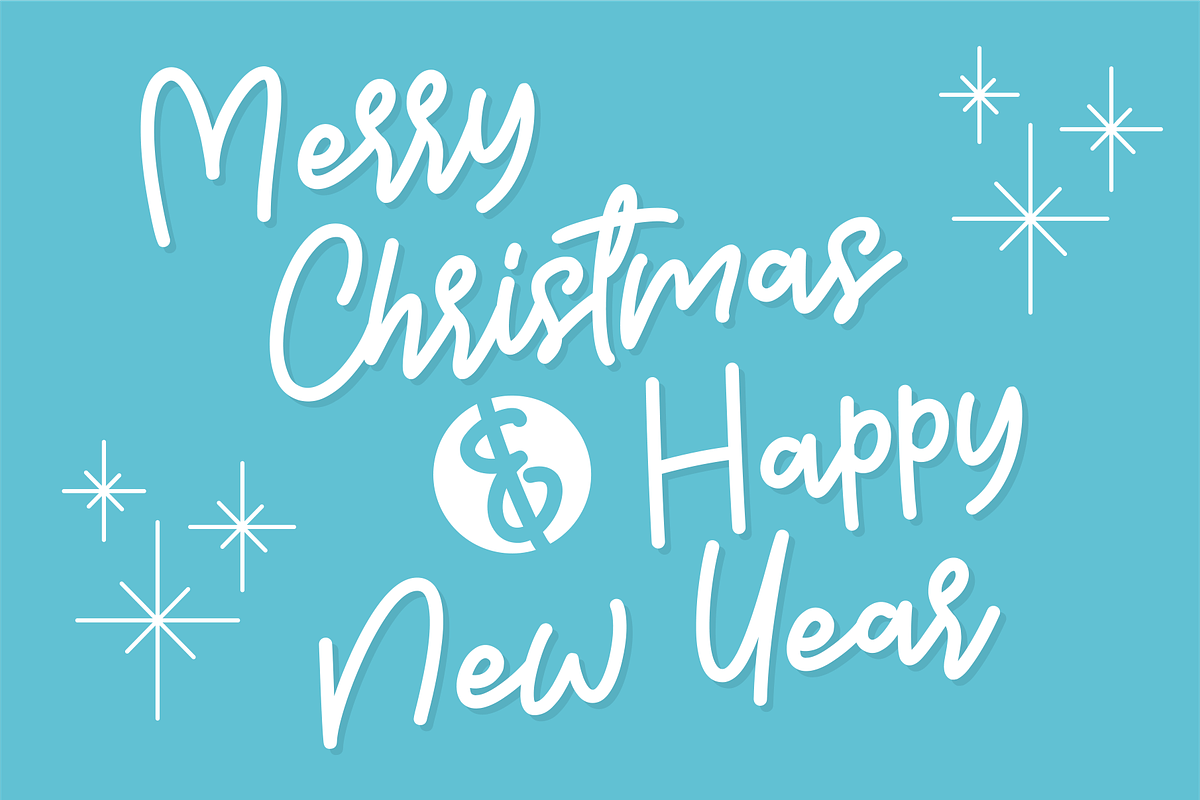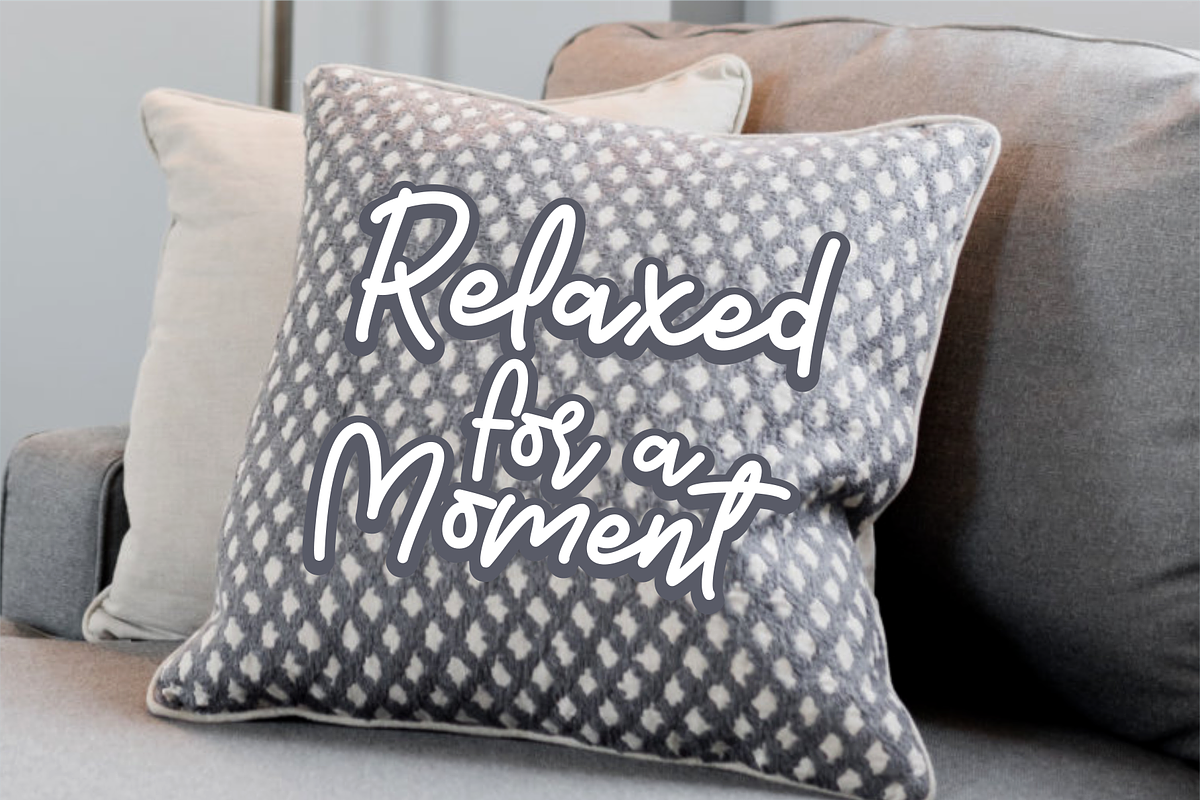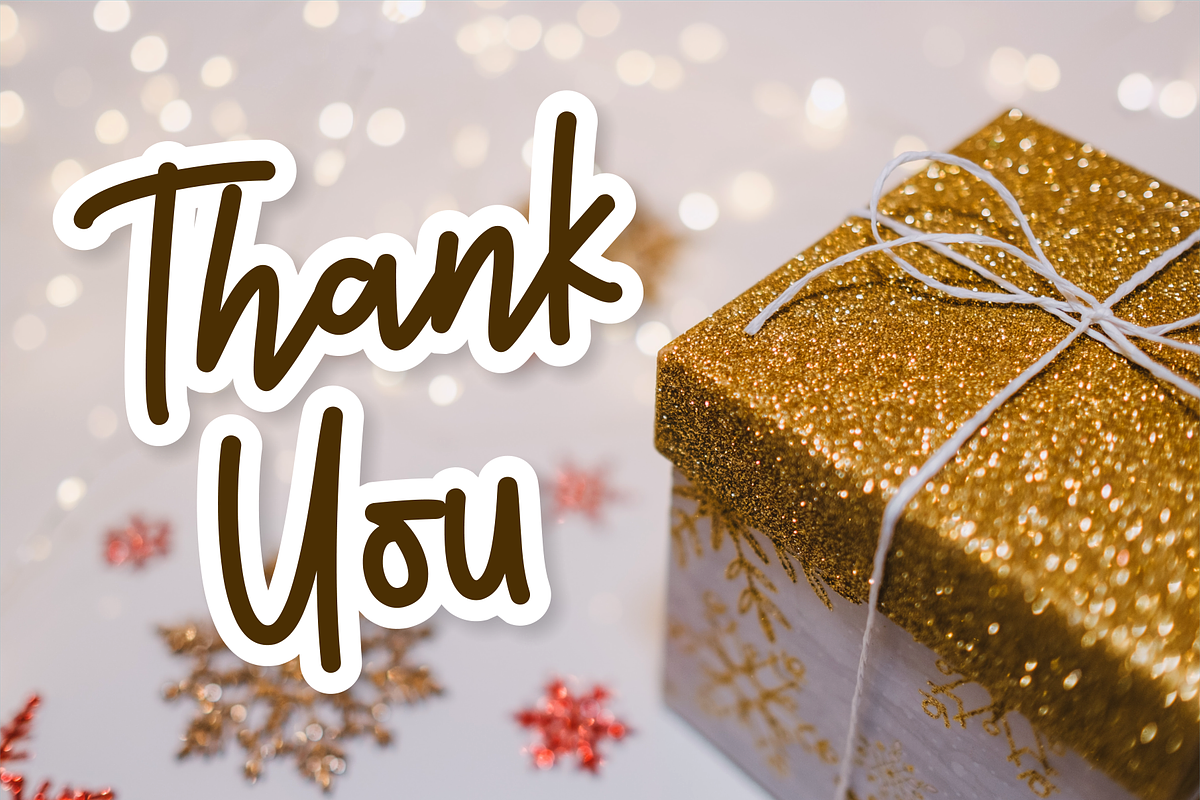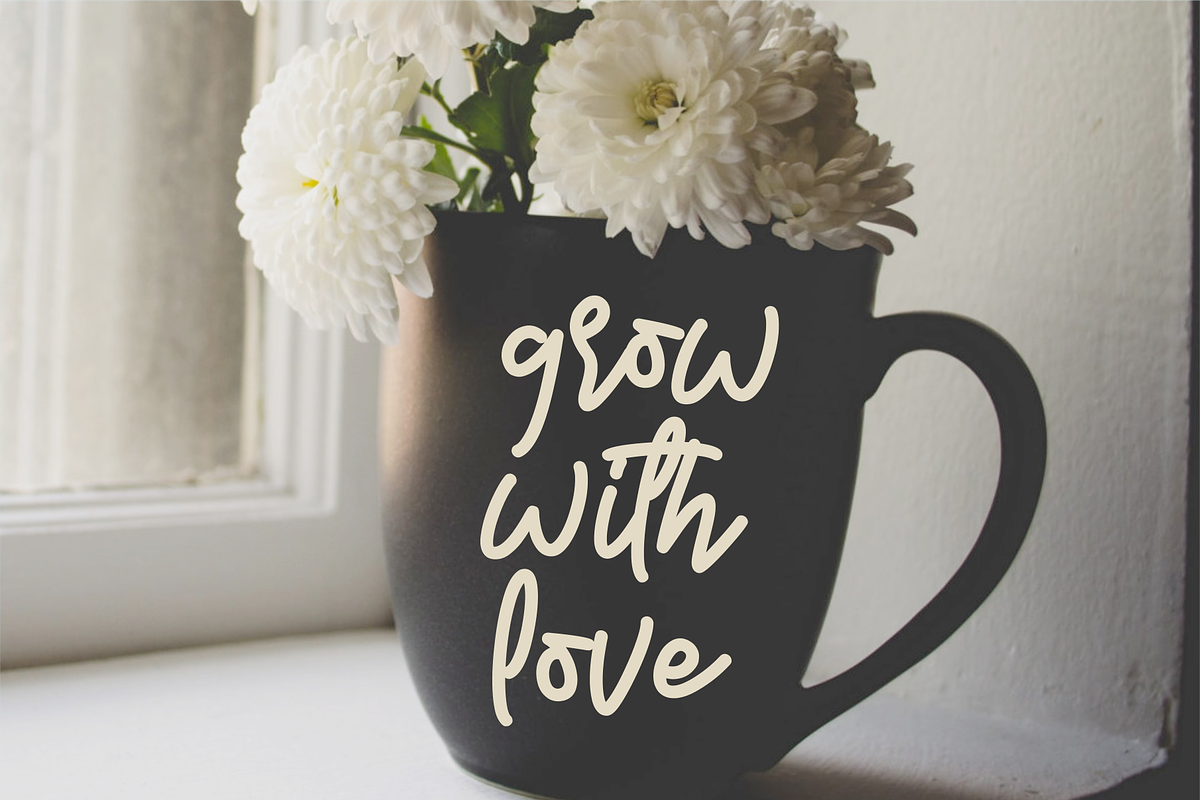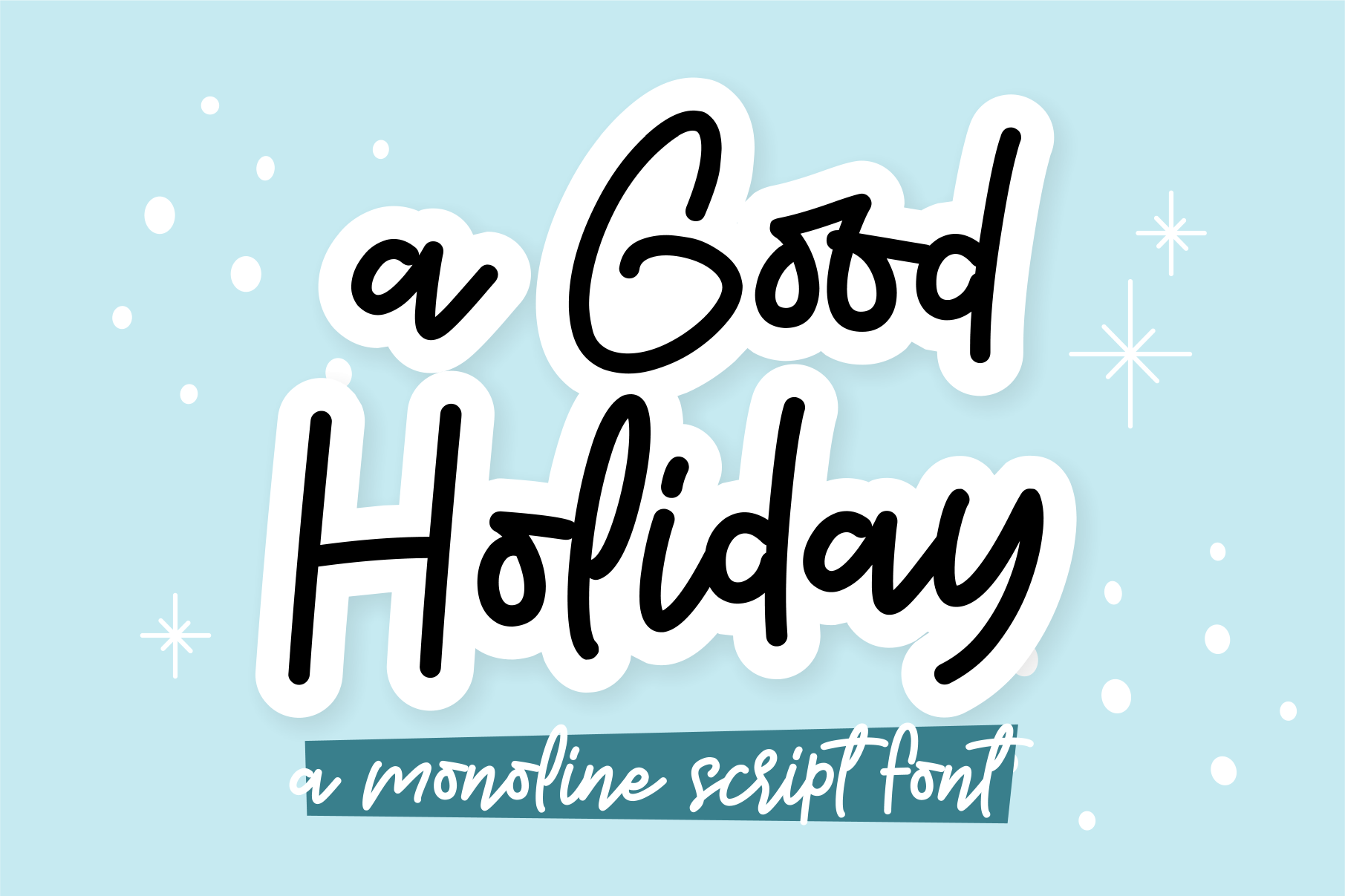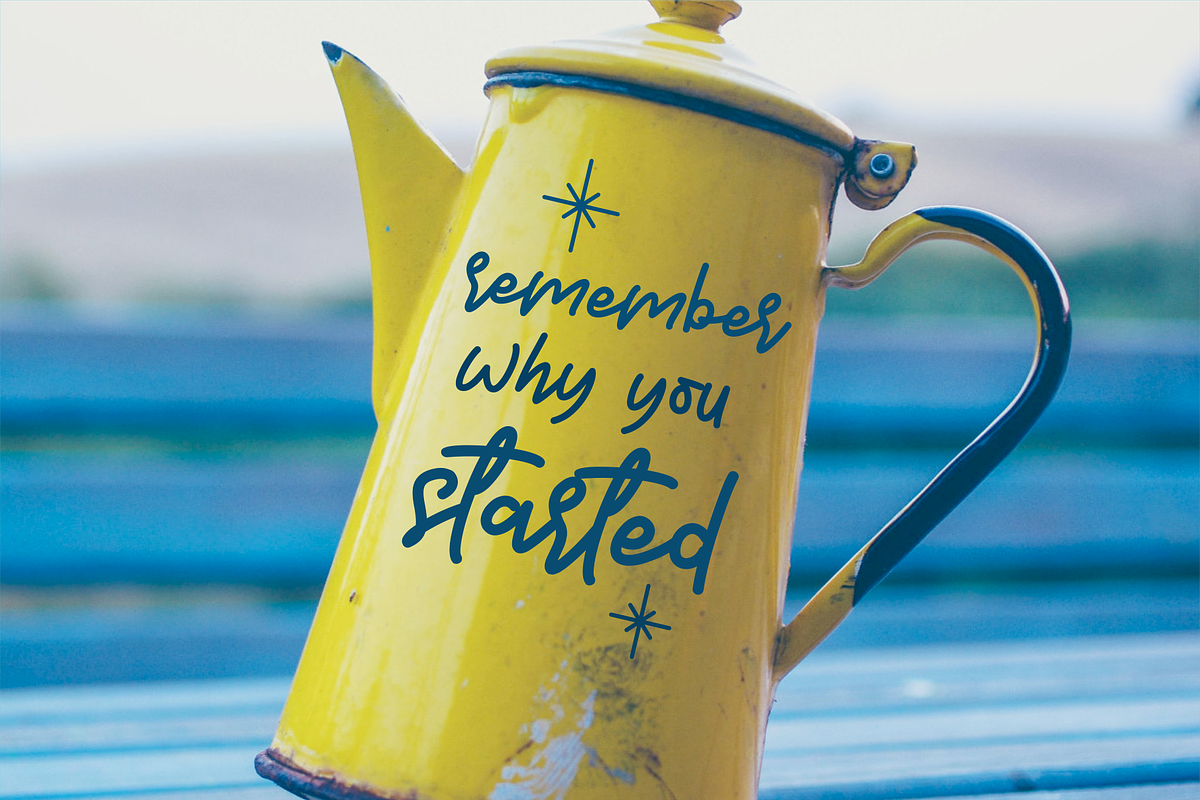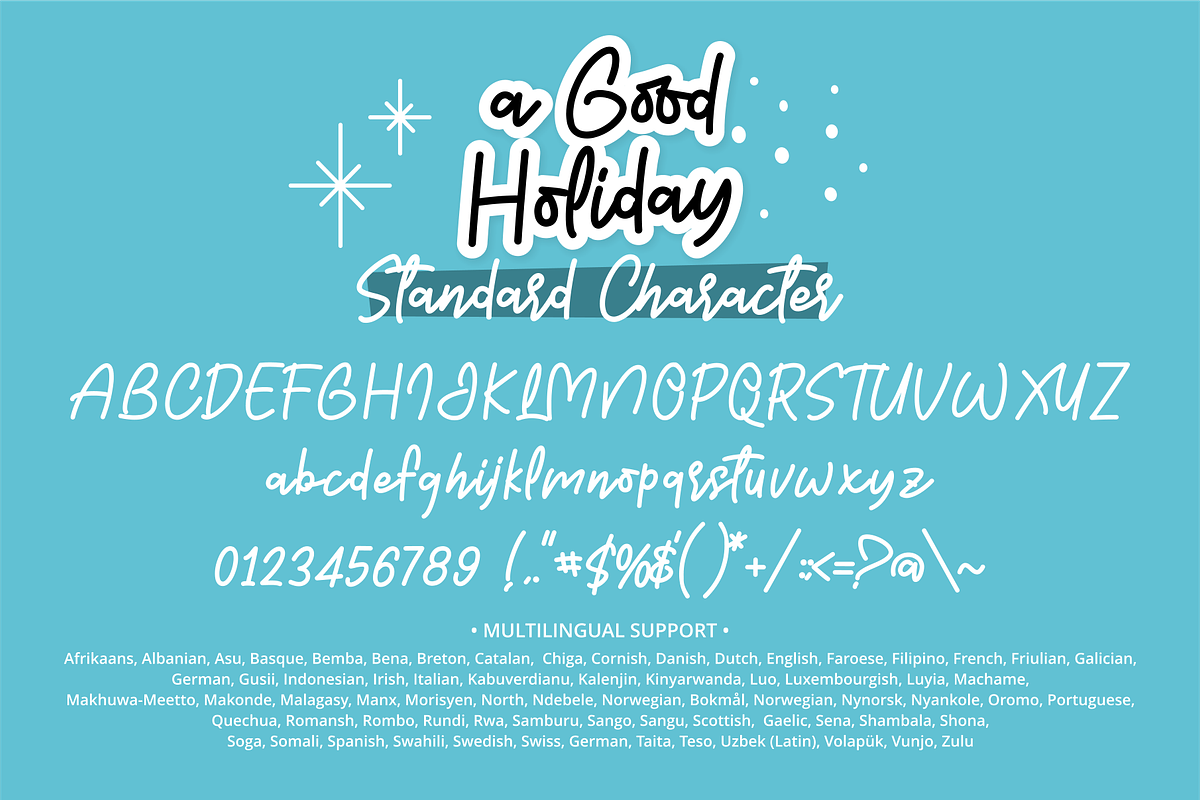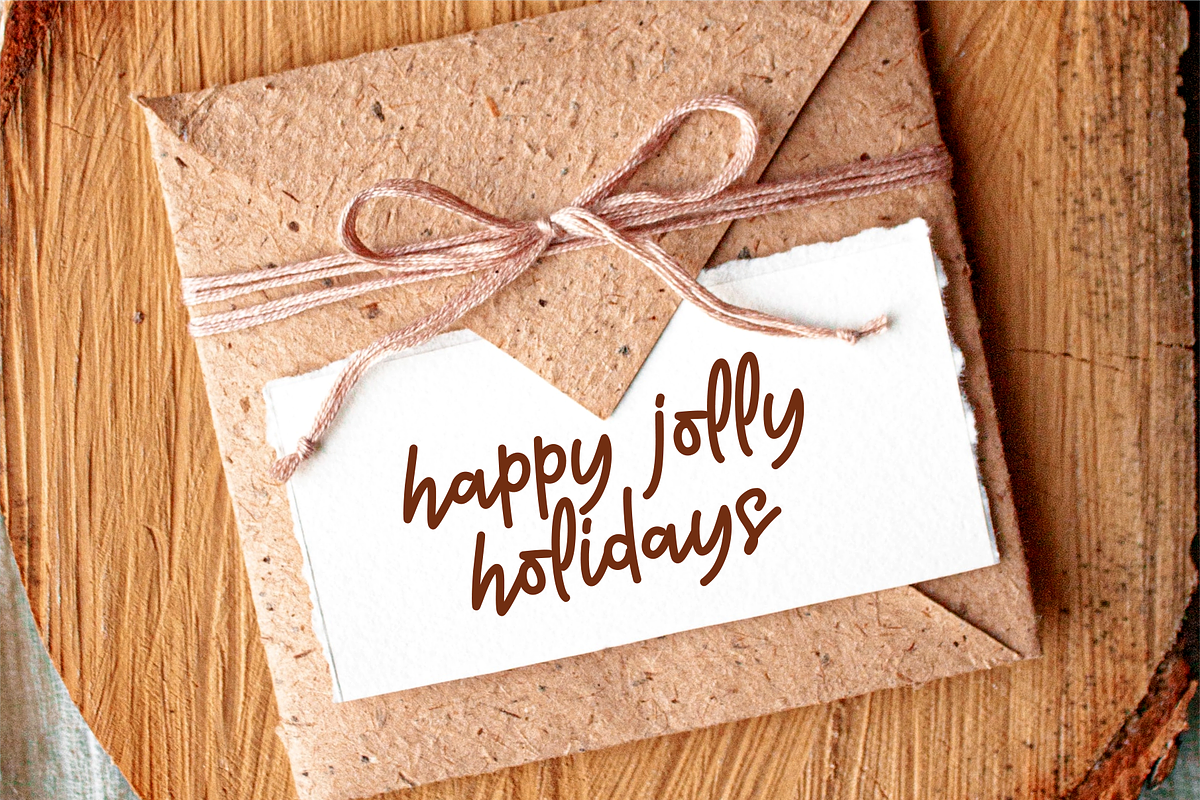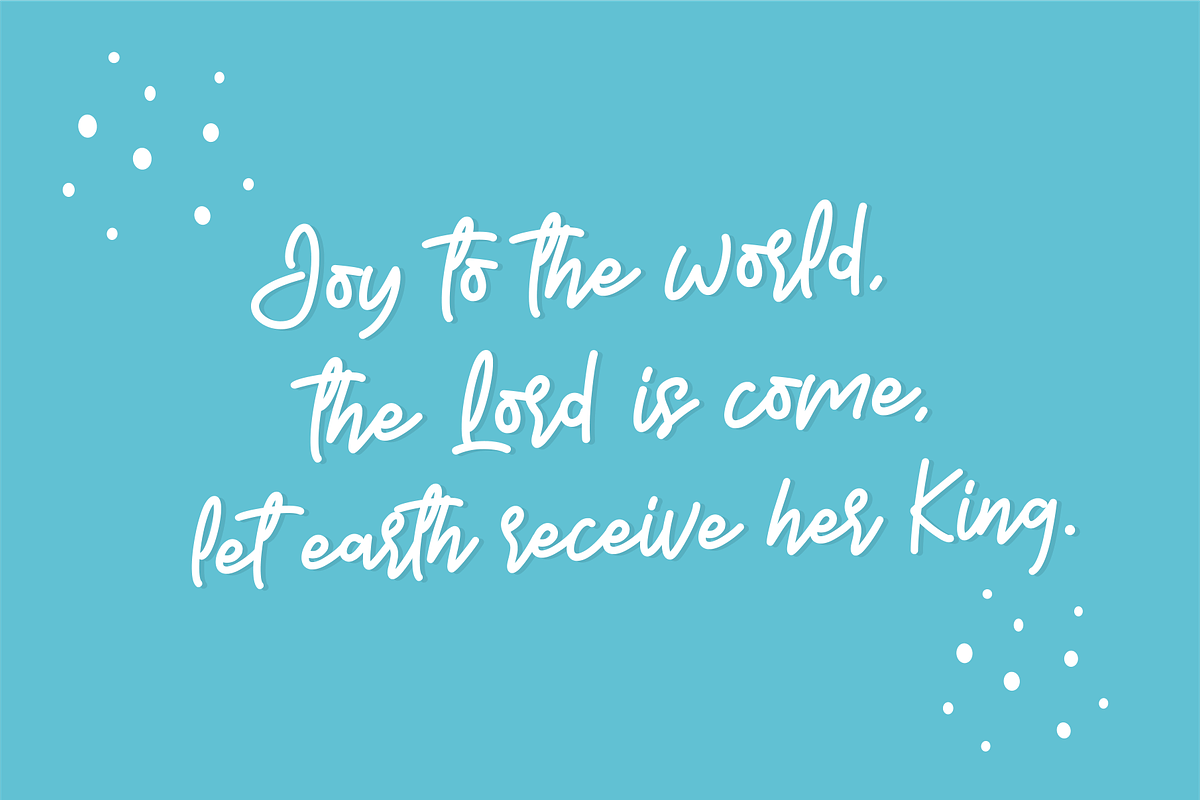
A Good Holiday Font
A Good Holiday is a simple and delicate script font. This font is perfect for your craft projects, Christmas decor, farmhouse signs, poster, t-shirtS and more. Have fun with this beautiful font and explore its endless variations.